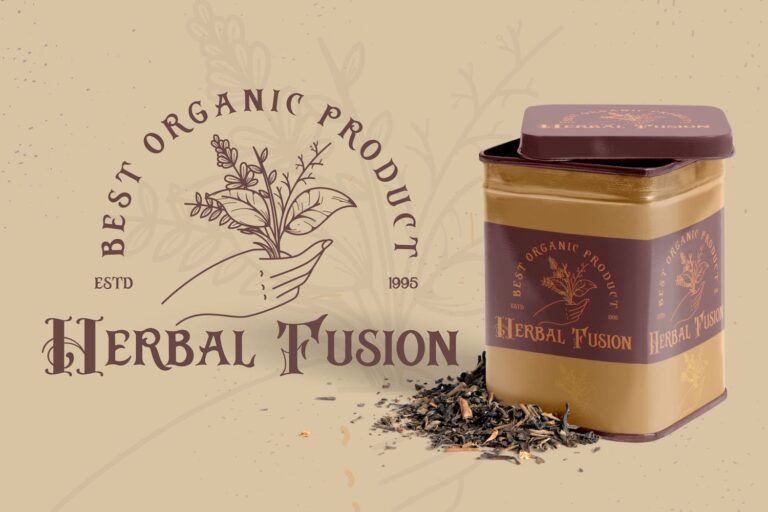
The Russel Dexter Retro Vintage Font captures the bold spirit of classic Americana with a hint of flair and rebellious charm. Designed in a retro serif style with script-like influence, this typeface blends sharp curves and high-contrast strokes that feel both handcrafted and timeless. Its slightly exaggerated terminals and playful baseline shifts add character to every word, making Russel Dexter ideal for creating typographic statements that demand attention without sacrificing legibility.
Russel Dexter is a natural fit for vintage-inspired branding, tattoo designs, motorcycle club emblems, barbershop signage, or band merch—anywhere a touch of nostalgia meets attitude. It thrives in bold headlines and standout titles, especially when paired with gritty textures or dark backdrops. The dynamic rhythm of the font feels at home in masculine lifestyle themes, from beards and bikes to vinyl and prayer—perfect for projects that aim to be both personal and powerful.
With Russel Dexter Retro Vintage Font, you're not just using a typeface—you’re injecting soul into your words, echoing a time when every letter had a story to tell.